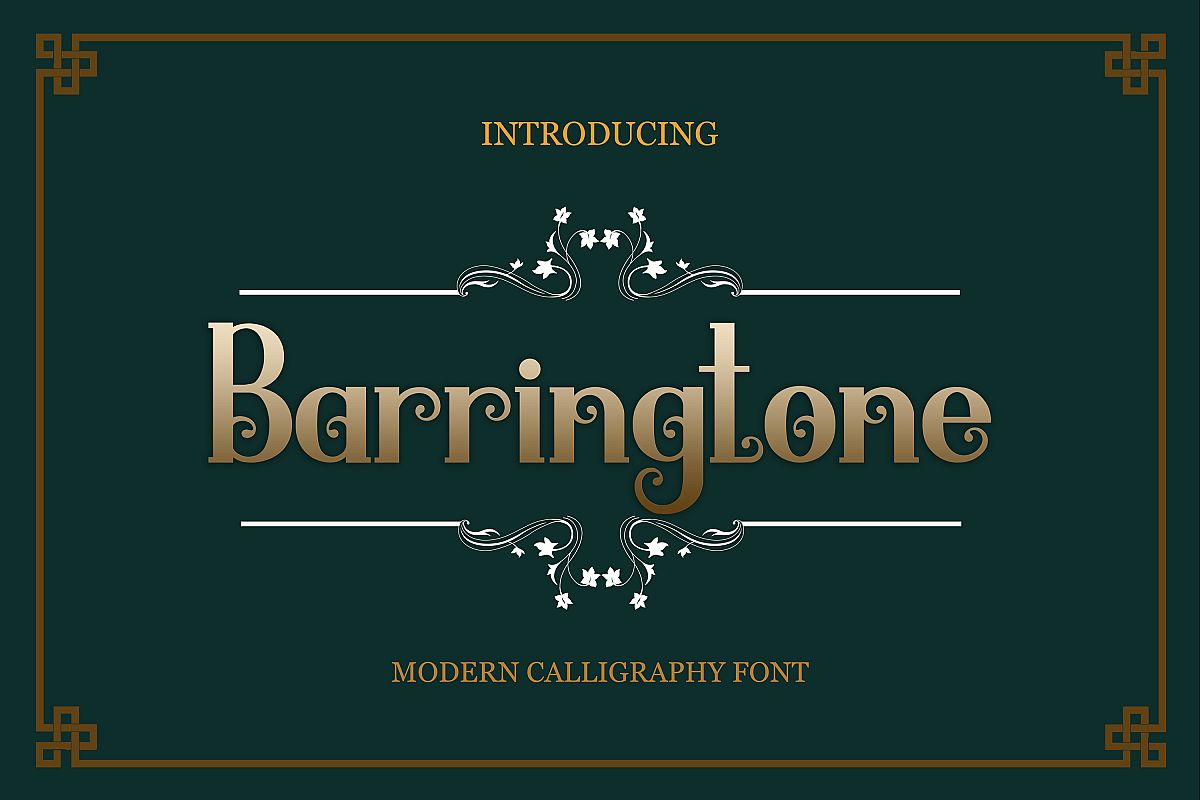
Barringtone
Barringtone is an upper and lowercase serif font with nicely balanced curves and touch of calligraphy. Like all of my fonts it is inspired by lettering from the good old past, but it still has a strong modern appearance.
It perfectly represents vintage esthetics in a modern and minimalist way.